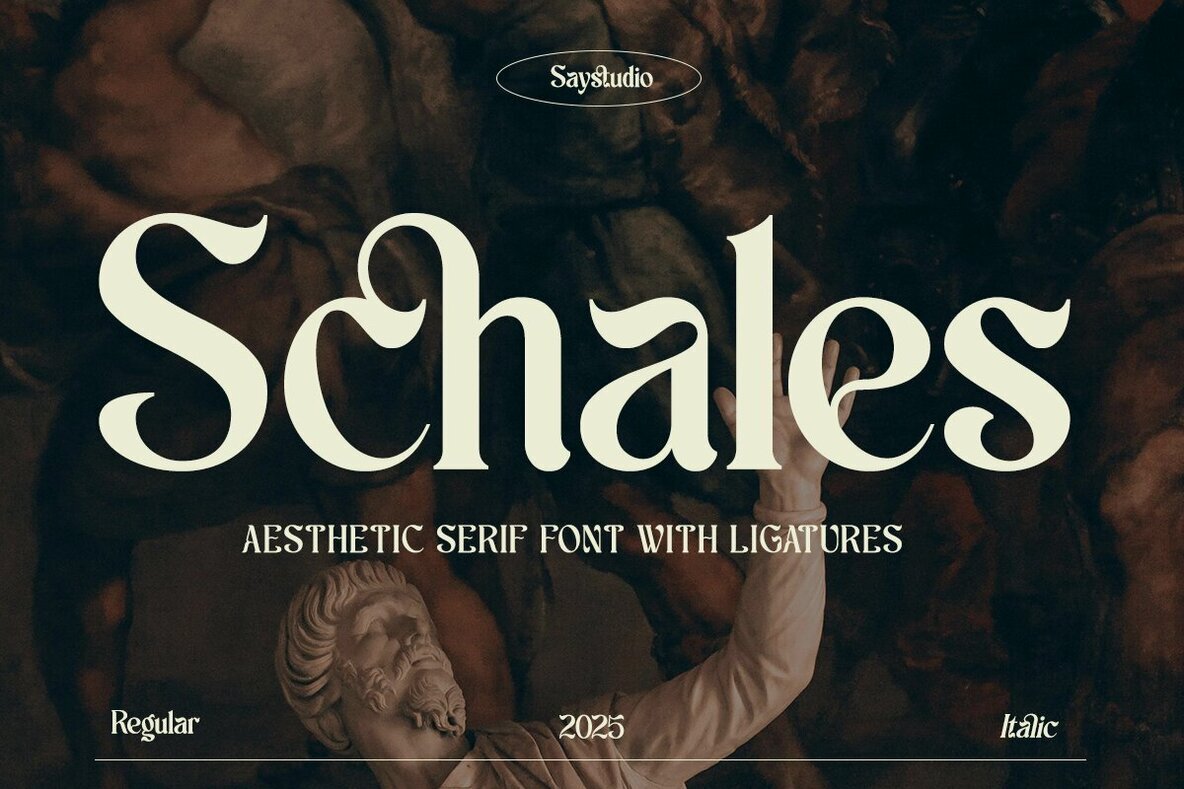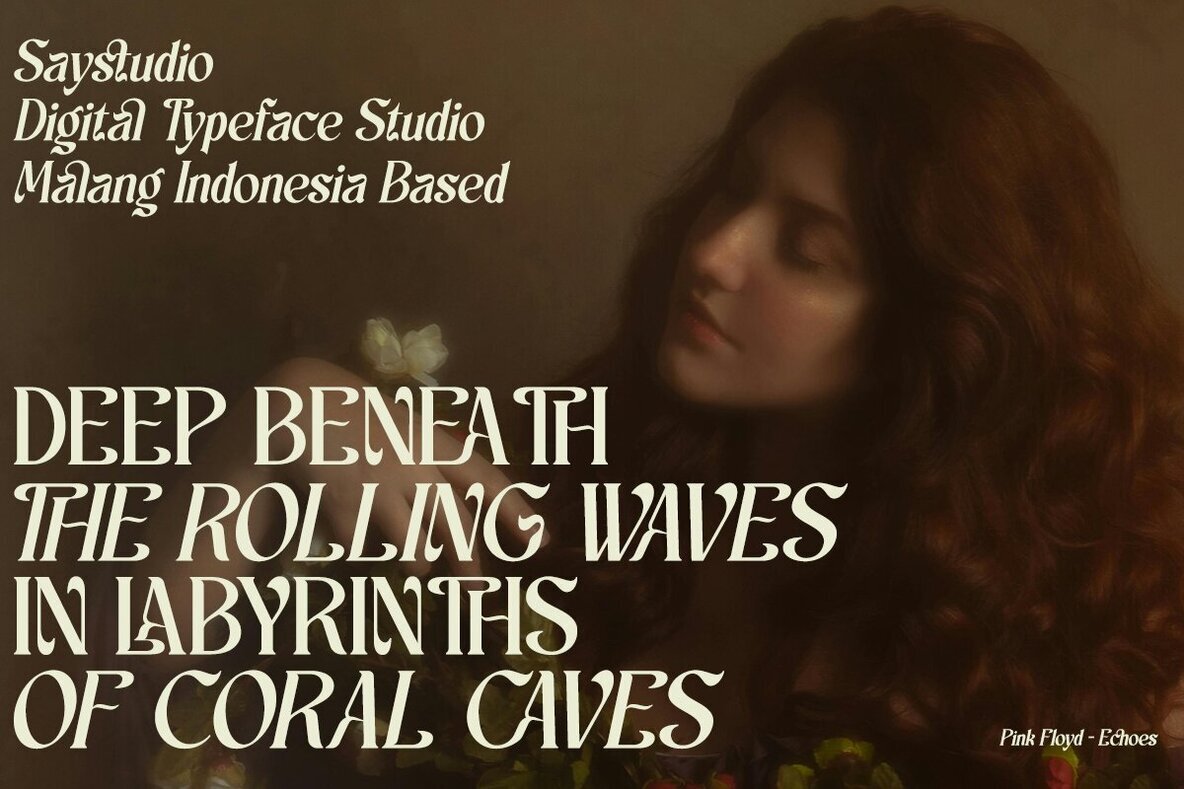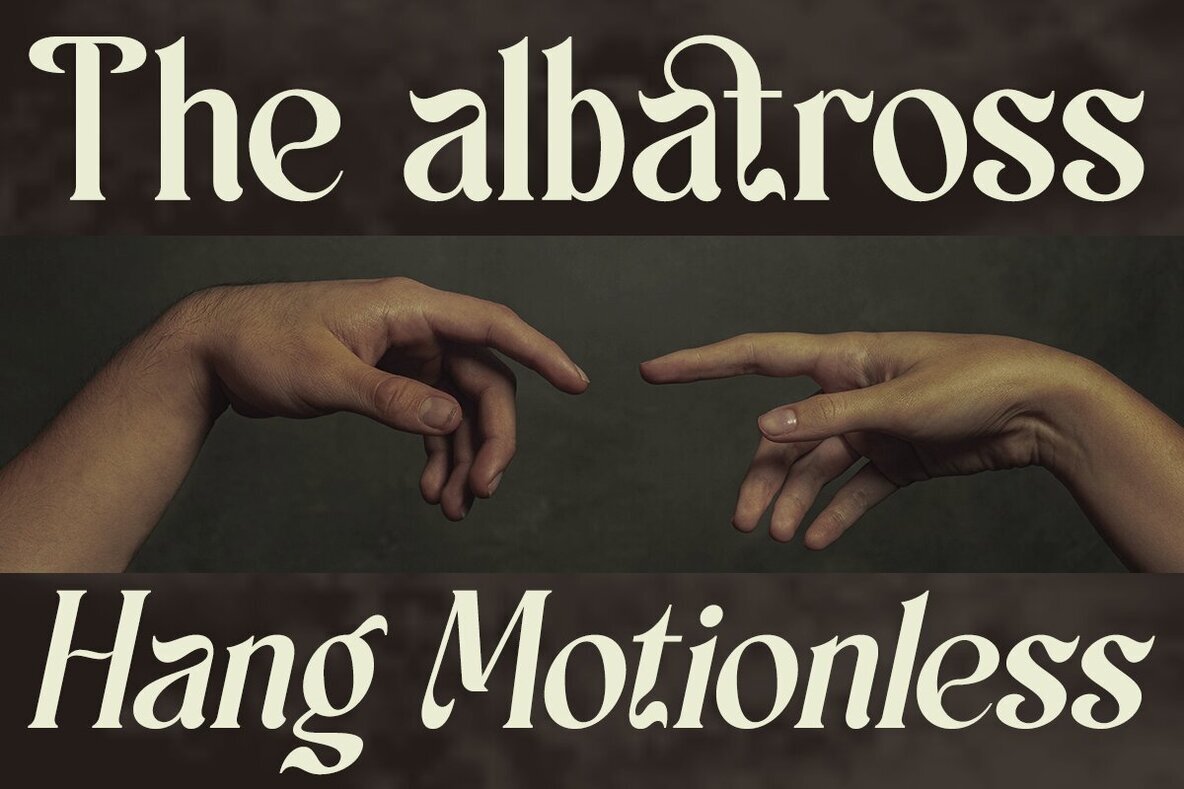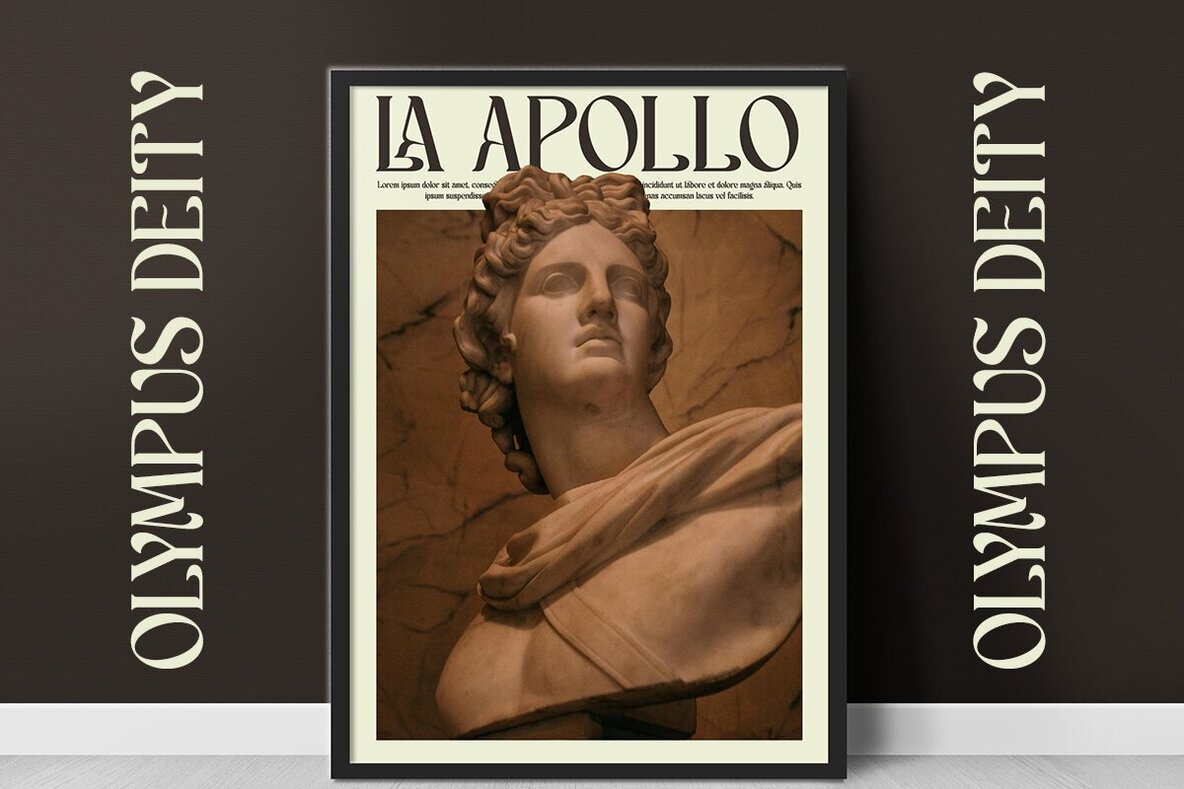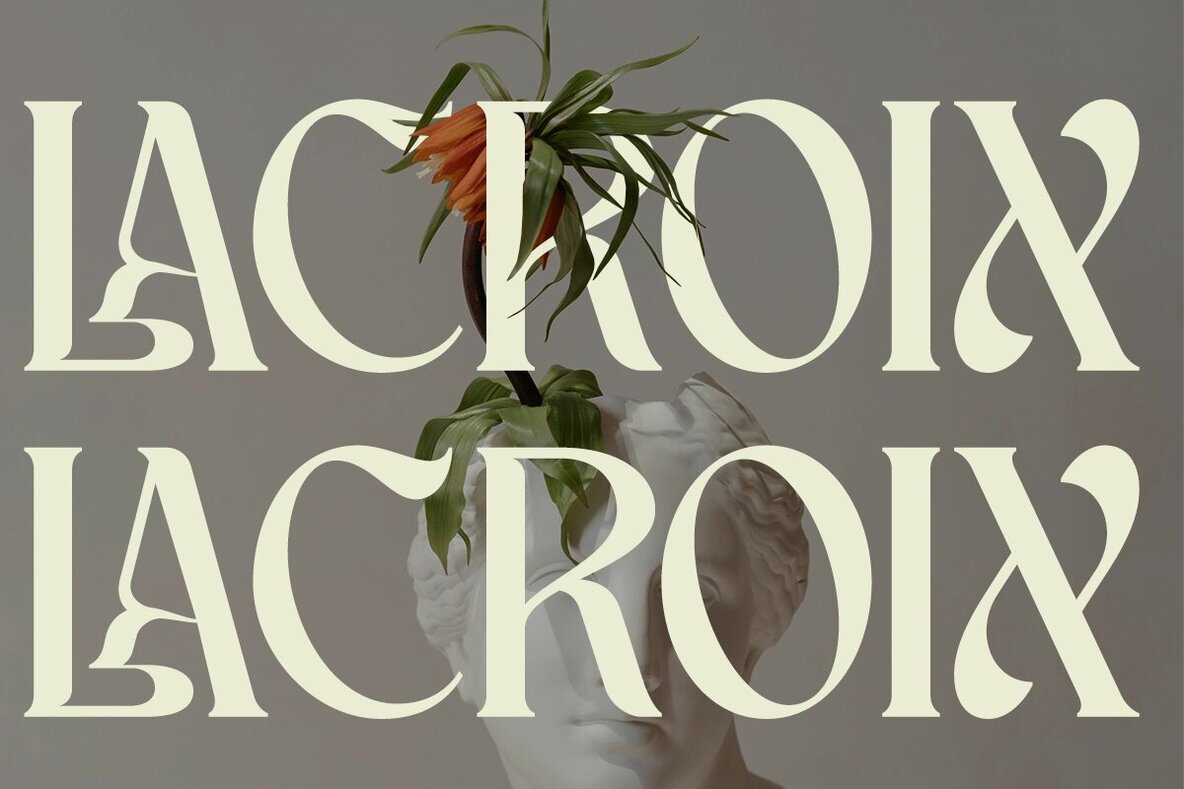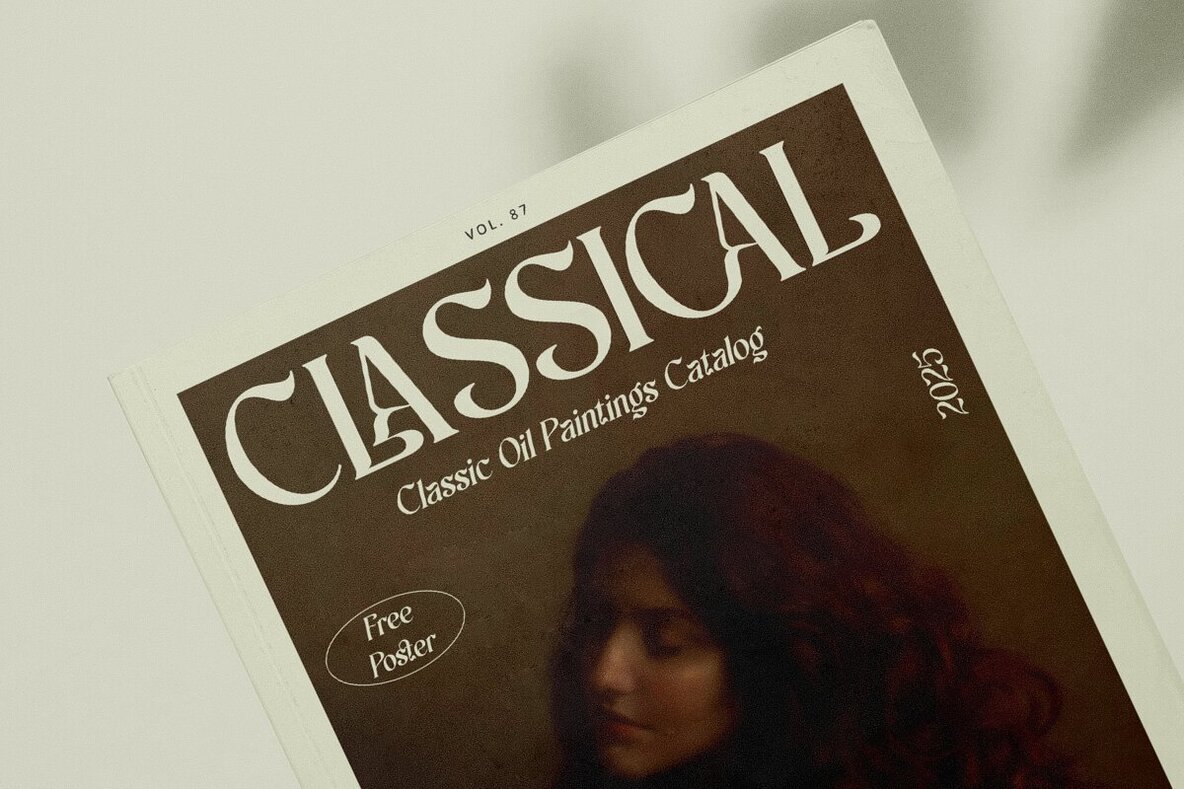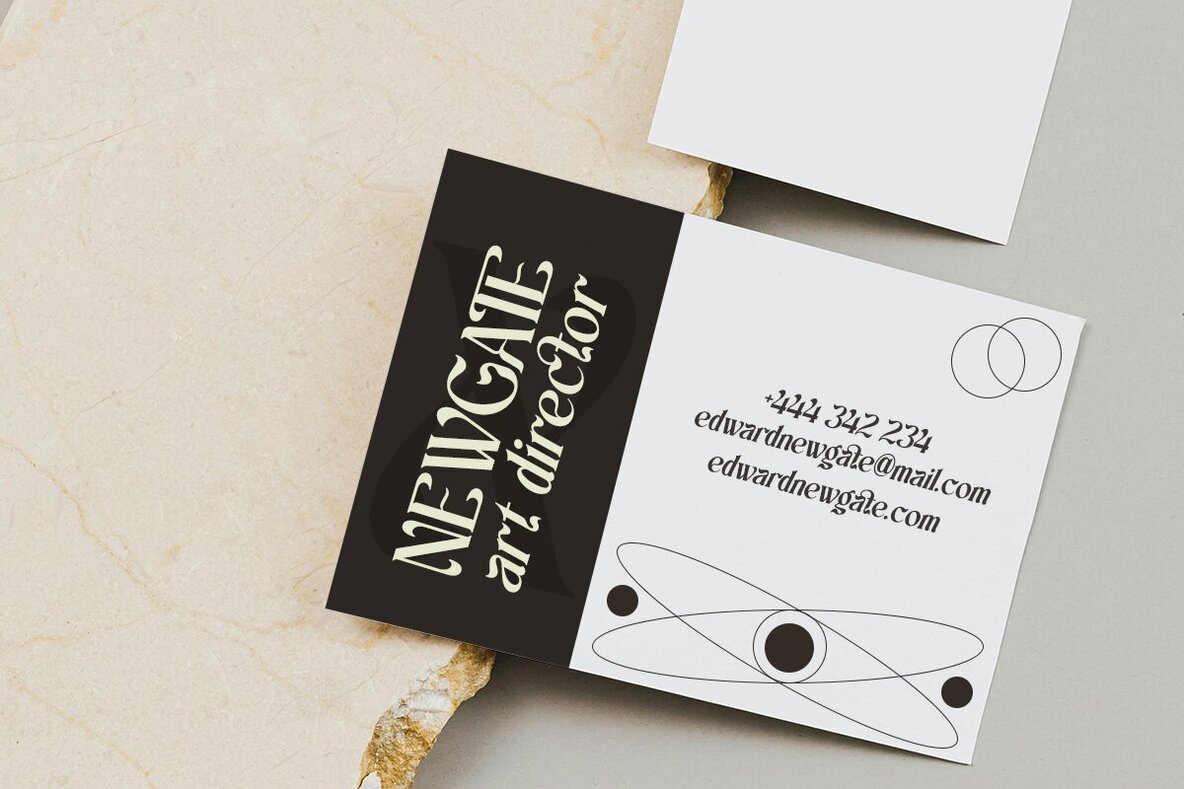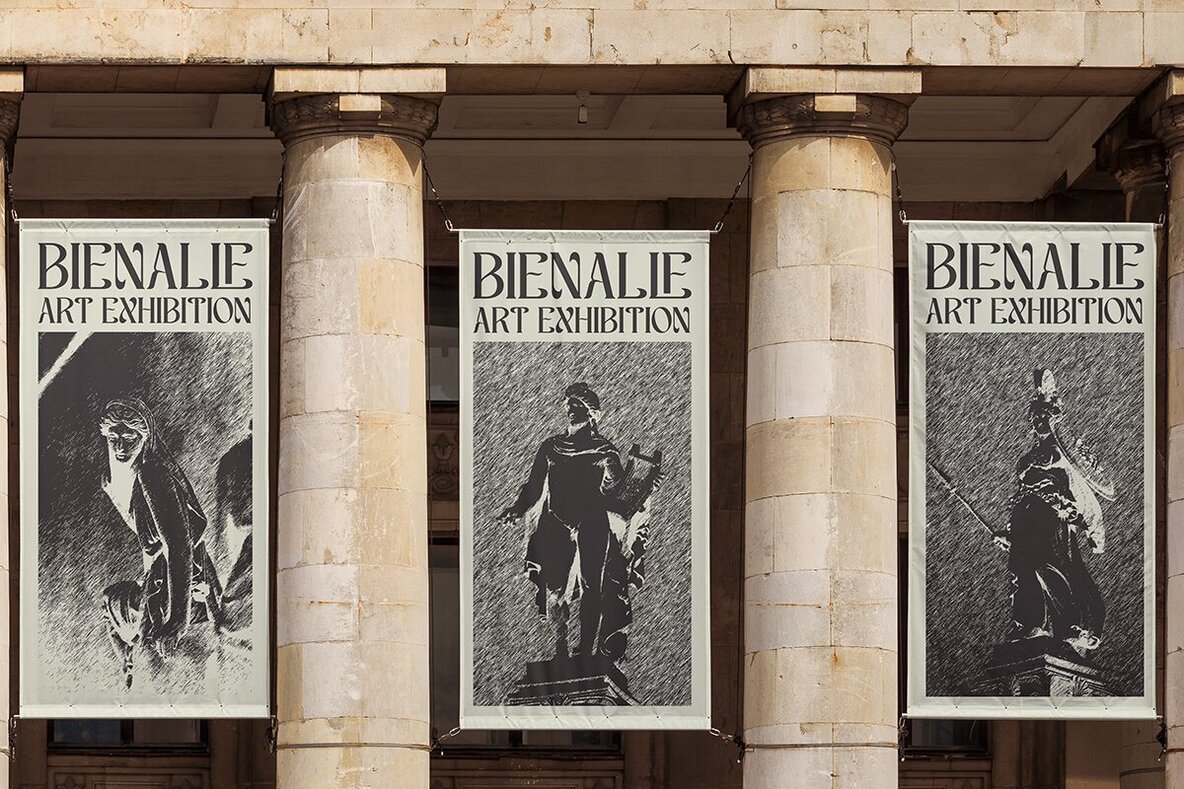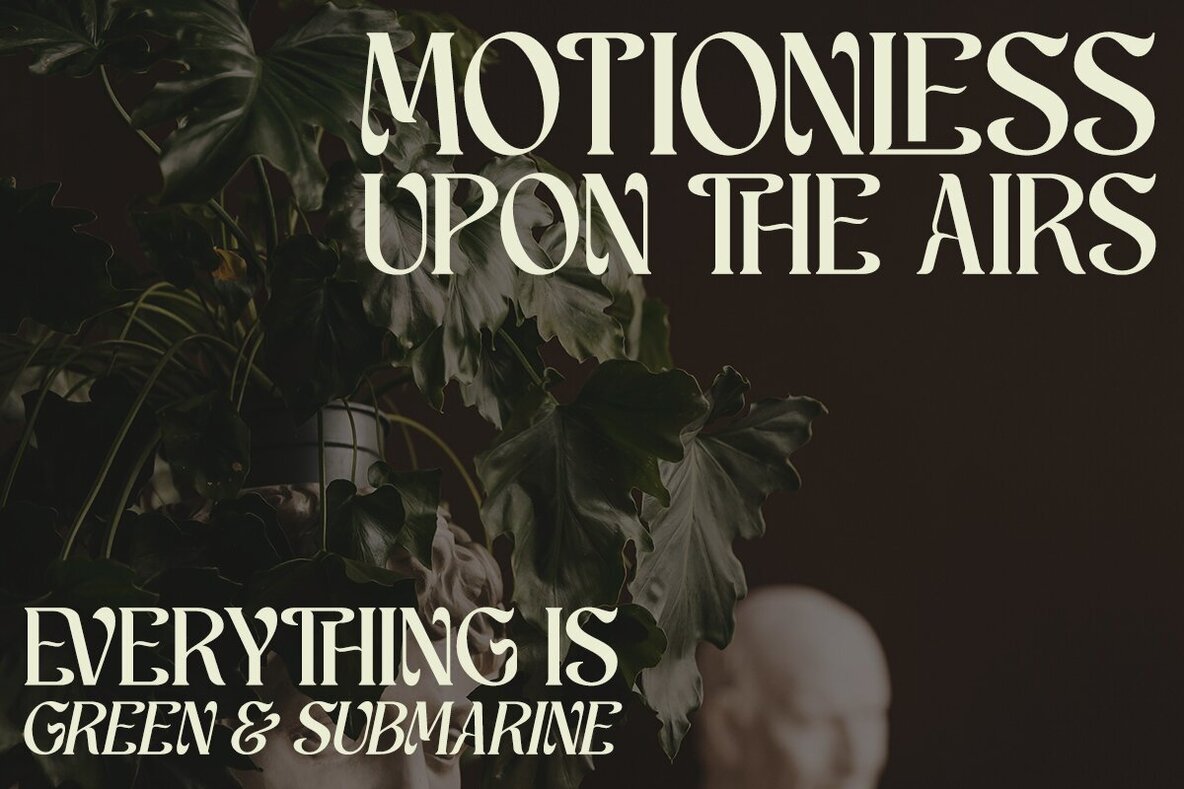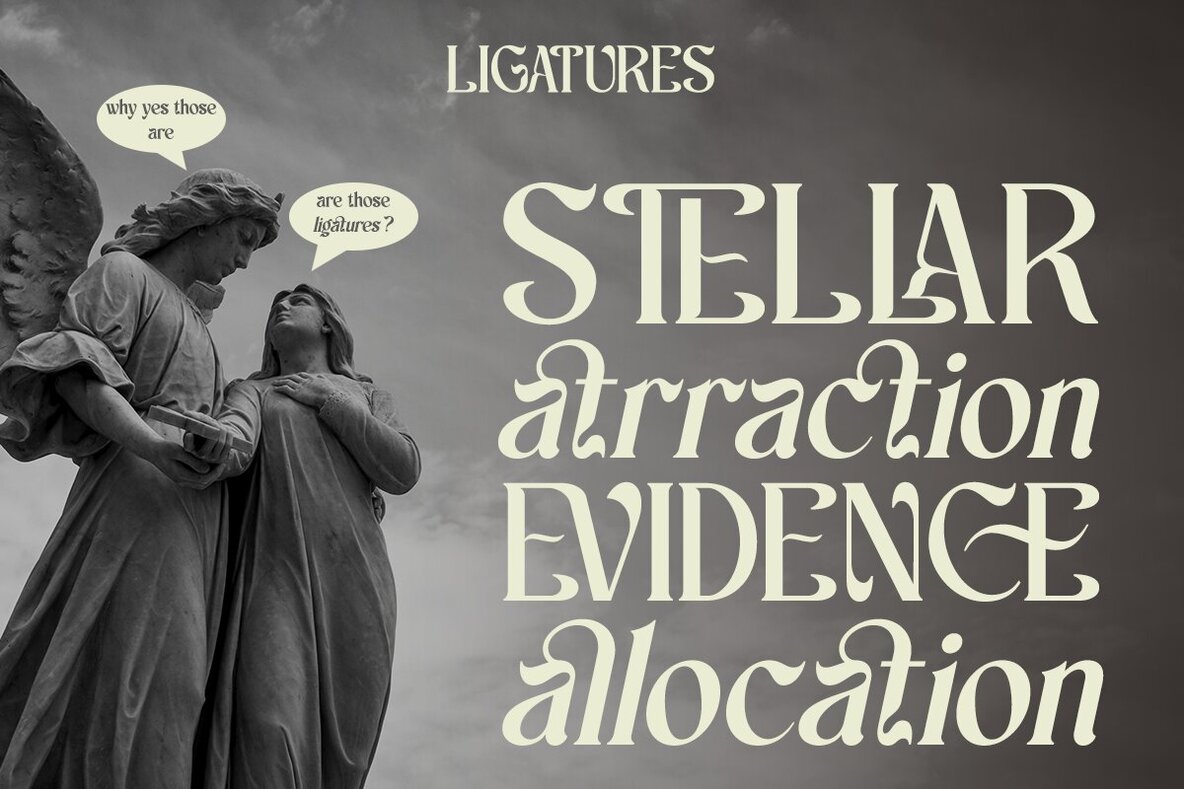
Schales Font
Meet Schales, an aesthetic and elegant modern ligature serif font ideal for every designer's toolkit. With its flowing shapes and contemporary touch, Schales seamlessly bridges the gap between modern and vintage design elements. Perfectly designed for headlines, digital ads, magazines, websites, posters, branding, and logos, this font elevates any project with its sophisticated style.Schales: A Modern Ligature Serif Font